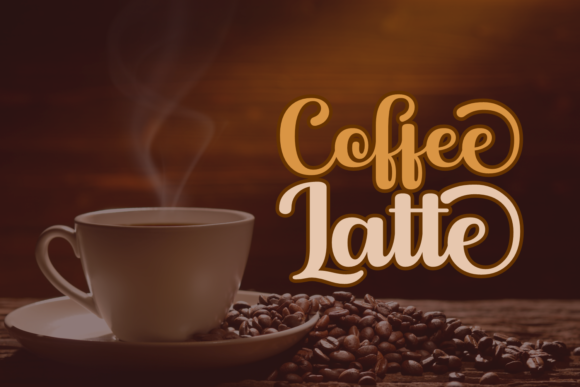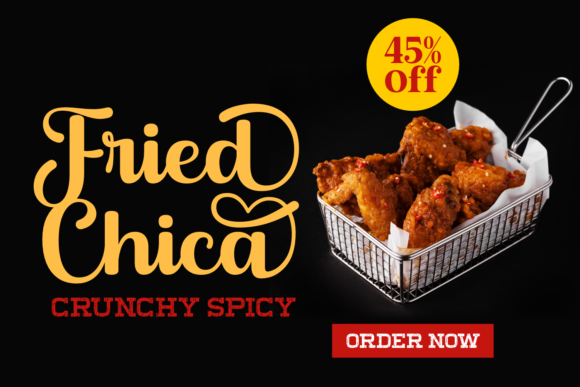
Introduction to Smoothie Cookies Font
Do you remember the thrill of browsing through old magazines or vintage advertisements? The colorful graphics, the playful typography, and the enticing headlines that stopped you in your tracks. For designers, those retro vibes can be a source of inspiration, and one font that’s sure to bring back those memories is the Smoothie Cookies Font.
With its transparent background and high-quality design, Smoothie Cookies Font is a must-have for any design enthusiast. So, let’s dive into the world of this retro advertising font and explore its many uses and benefits.
Key Features of Smoothie Cookies Font
- High-quality, unique design ideal for creative projects and food-related themes.
- Designed with a modern and playful aesthetic, perfect for branding, packaging, and advertising.
- Includes a range of glyphs and characters to support multilingual typography and creative expression.
Honest Review: Smoothie Cookies Font
As a designer, I’m always on the lookout for high-quality design resources to elevate my creative projects. The Smoothie Cookies Font is one such resource that caught my eye. This free download has a transparent background, making it perfect for designing labels, packaging, or other applications where a clean and minimalist look is desired.
What works well about this font is its playful and whimsical feel, making it perfect for projects that need a touch of fun and personality. The smooth, rounded edges and soft curves give the font a friendly and approachable vibe that’s sure to appeal to a wide range of audiences.
The Smoothie Cookies Font is a great addition to any designer’s toolkit, and I’ve found it to be particularly useful for designing digital assets such as social media graphics, blog posts, and online advertisements.
What I like most about this font is its versatility and ease of use. With its high-quality design and transparent background, it’s a breeze to work with and customize to suit your needs.
- High-quality design with smooth, rounded edges
- Perfect for digital assets such as social media graphics and blog posts
Overall, I’m impressed with the Smoothie Cookies Font and would highly recommend it to anyone looking for a fun and versatile font to add to their design arsenal.
Tips for Getting the Most Out of Smoothie Cookies Font
For the best results, use Smoothie Cookies Font in conjunction with other design elements, such as bold colors and geometric shapes. Experiment with different font sizes and styles to create a unique design.
Common Use Cases for Smoothie Cookies Font
This font is perfect for social media graphics, blog posts, and marketing materials. Its modern, playful style makes it ideal for creative projects that require a high-quality, professional look.